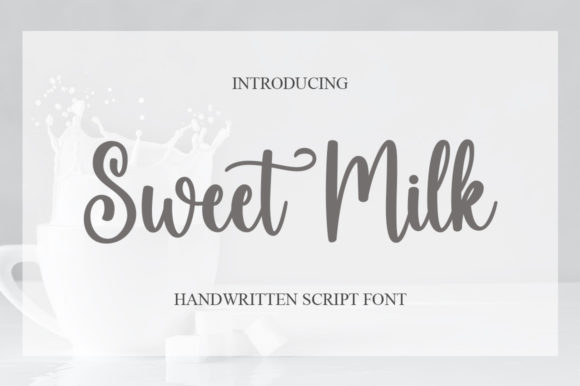
In a world craving authenticity, Sweetmilk font emerges as a breath of fresh air, a cascade of elegance that graces your designs with a touch of heartfelt charm. A handwritten script font, Sweetmilk dances across the screen like a ballerina, its characters twirling and swirling in perfect harmony. Each letter, meticulously crafted, exudes a sense of delicate poise, reminiscent of a love letter penned by a smitten heart.
Step into the world of Sweetmilk, where your designs blossom with an aura of timeless grace. This font is an artist's dream, a versatile chameleon that adapts effortlessly to a myriad of creative endeavors. Whether you're crafting heartfelt wedding invitations, enchanting logos that whisper stories, or simply adding a touch of whimsy to your social media posts, Sweetmilk rises to the occasion with unwavering finesse.
Its beauty lies not only in its form but also in its boundless versatility. Sweetmilk harmonizes seamlessly with a symphony of design styles, from the classic and traditional to the modern and unconventional. It's a font that transcends trends, a timeless treasure that will remain a cherished companion in your creative journey.
As you immerse yourself in the world of Sweetmilk, you'll discover a treasure trove of possibilities. This font unlocks a universe of artistic expression, empowering you to transform your designs into captivating masterpieces. Let Sweetmilk be your muse, guiding you towards creative heights you never thought possible.
But Sweetmilk is more than just a font; it's an experience. It's the feeling of joy as your fingers dance across the keyboard, crafting words that resonate with emotion and depth. It's the satisfaction of watching your designs come to life, imbued with a touch of magic that captivates the hearts of your audience.
With Sweetmilk, you'll never settle for ordinary again. This font ignites your passion, fuels your creativity, and propels you towards greatness. Embrace the allure of Sweetmilk and embark on a journey of artistic fulfillment like never before.